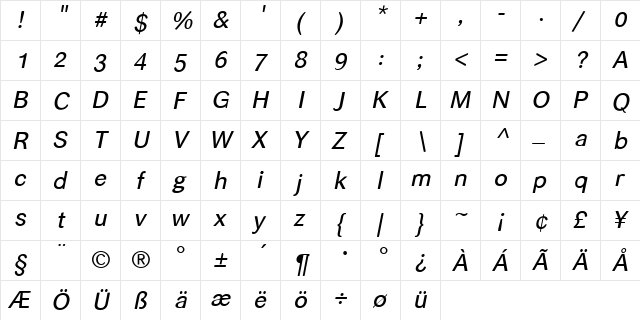
helvari Italic
Design Context for helvari Typeface
helvari is a composed and adaptable typeface that performs quietly and consistently across a wide range of design contexts. Its italic angle brings a sense of urgency and motion to the letterforms.
Pro Tip: Use helvari for emphasis, pull quotes, and subheadings where its slanted energy can add rhythm to the layout.